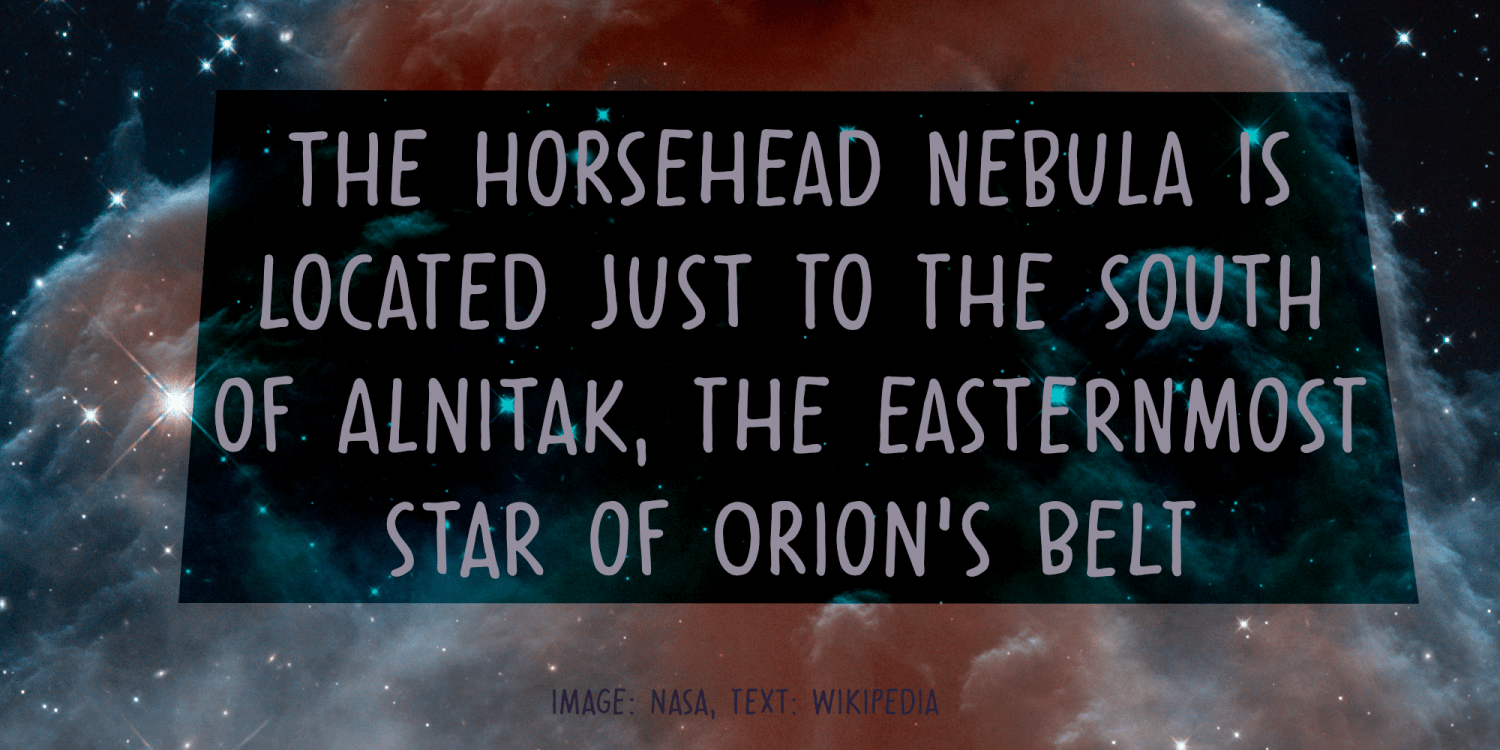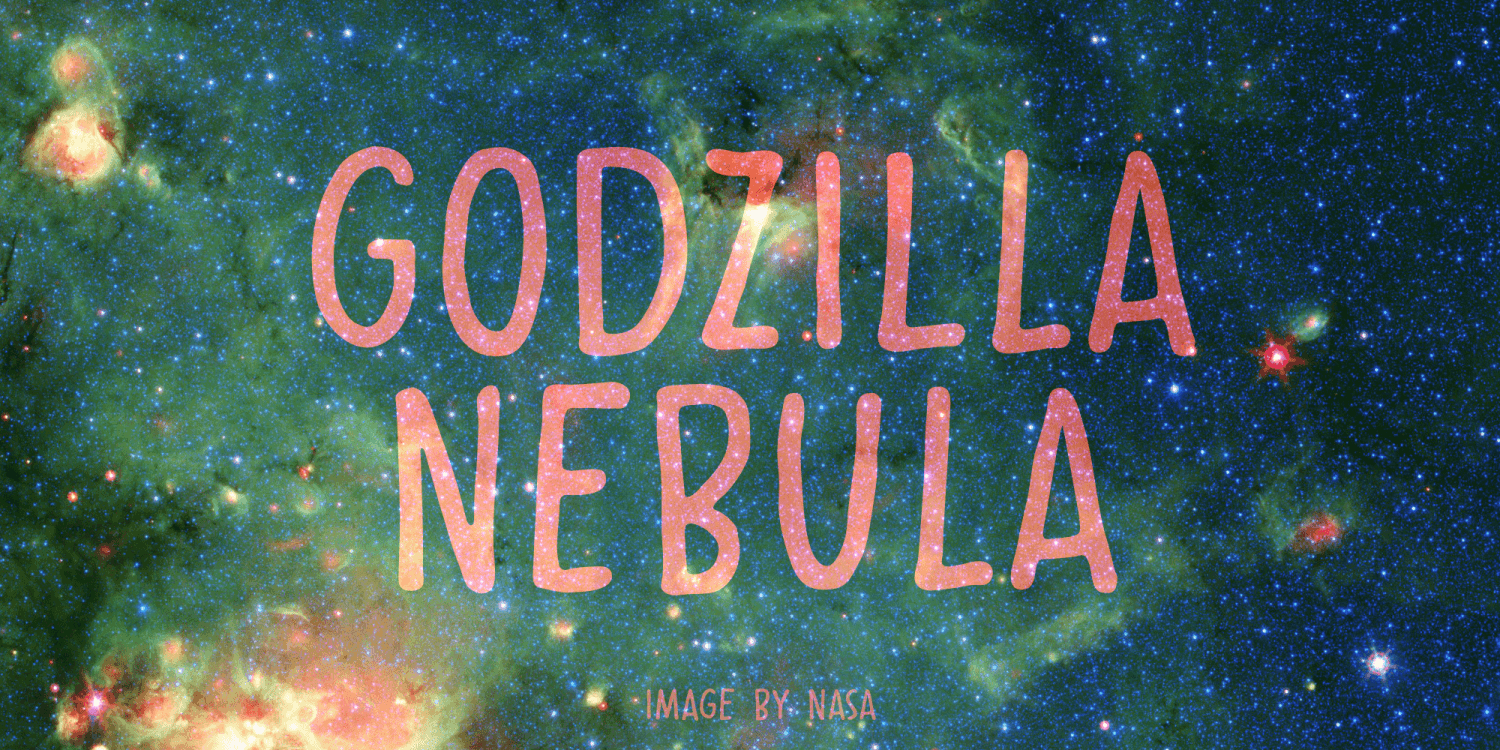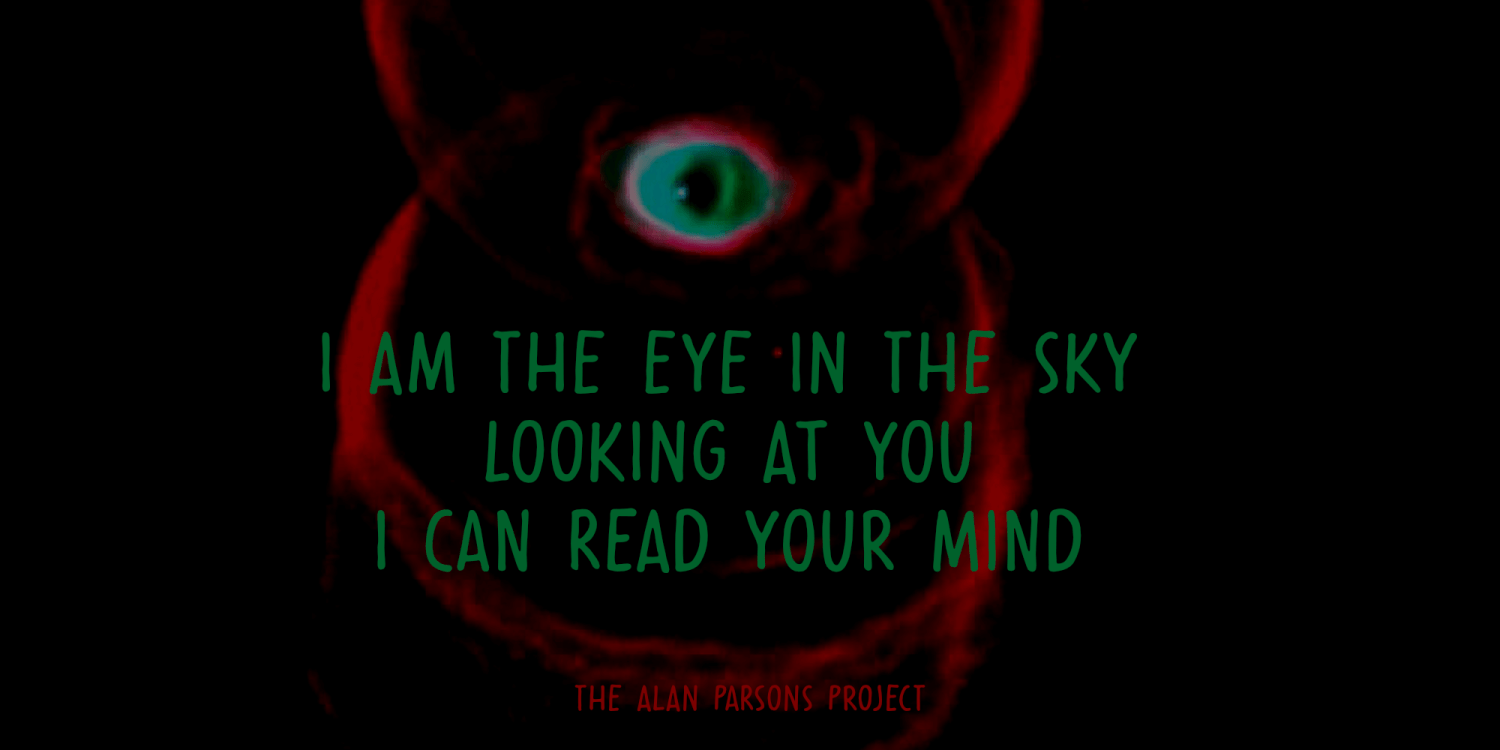
About Cosmic Dust
Cosmic Dust is dust that occurs in outer space or has fallen onto earth. Cosmic Dust font isn\’t a dusty or celestial affair, no, it is a nice and useful font I made with a Sharpie pen. It is a little uneven, a little wobbly, but comes with a lot of character.…